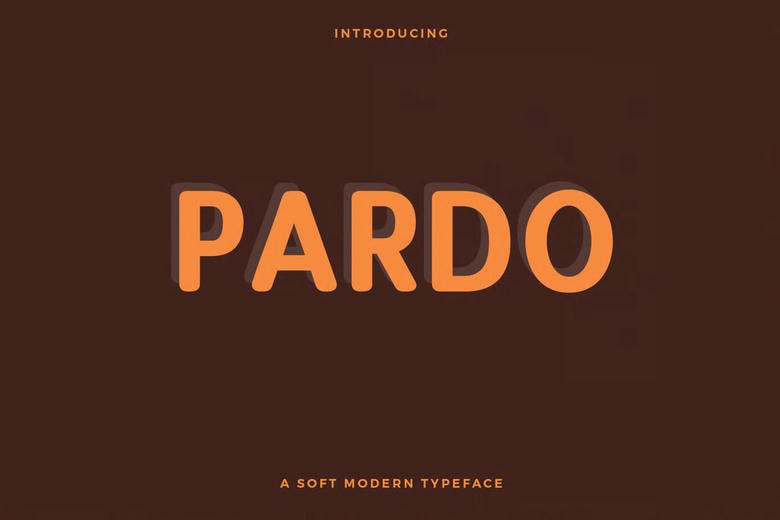
Pardo Round Font Family
Pardo Round Font Family is a modern sans serif typeface with a slightly condensed look. It adds a bit of personality and works well for headers and body text. The family includes all Latin characters with accents, plus numbers, special characters, and punctuation.
Pardo Round Sans Serif Font Family